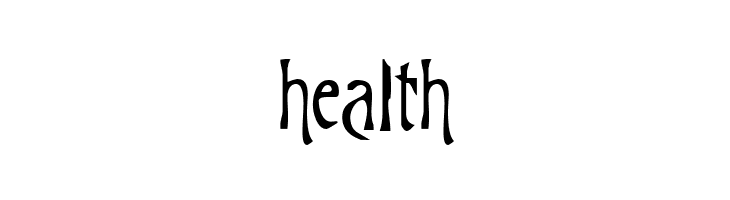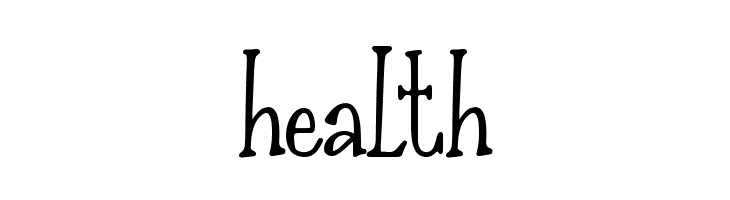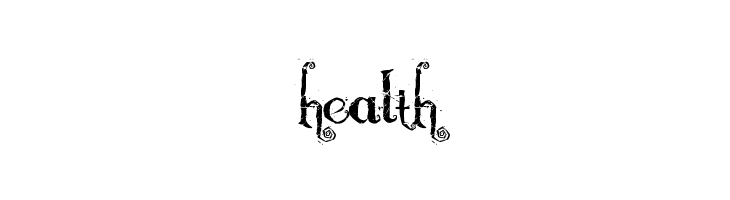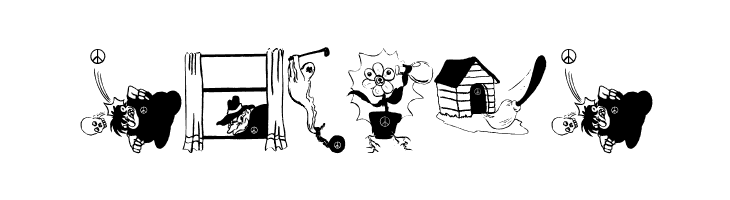
Nightmare-Before-Christmas Font
A whimsical, gothic-style font with irregular strokes and playful curves.
Burtons Nightmare Font
A whimsical, gothic-inspired font with sharp serifs and playful curves.
Nightmare-5 Font
A jagged, eerie font with sharp edges and a horror-inspired aesthetic.
Nightmare Hero Font
A bold, gothic-inspired font with sharp, angular edges and dramatic serifs.
Nemo Nightmares Font
A decorative, grunge-style font with spirals and distressed textures.
WEDDING NIGHTMARES trial Font
An elegant, ornate script font with flowing cursive letters and decorative flourishes.
Nightmare Alley Bold Font
A bold, rugged font with a distressed, hand-drawn appearance.
CF Nightmare PERSONAL Regular Font
A bold, dripping font perfect for horror-themed designs.
Silent Hill Nightmares Font
A horror-themed pictorial dingbat set with detailed illustrations.
Nightmare Alley Font
A bold, distressed font with a rough, textured appearance.
NIGHTMARE PILLS Font
A distressed serif font with a grunge, weathered appearance.
Wedding Nightmares Personal Use Italic Font
An elegant, italic script font with dramatic flourishes and vintage charm.
Nightmare AOE Font
A bold, jagged font with a horror-themed, dynamic style.
NIGHTMARE Font
A chaotic, edgy font with jagged, irregular strokes and a distressed appearance.
Nightmare Maker Font
A bold, angular font with sharp, pointed elements and a dramatic, modern gothic style.
Nightmare Alley Rotalic Font
A bold, distressed, and slanted font with a gritty, urban aesthetic.
Nightmare Alley Expanded Font
Nightmare Alley Condensed Font
A bold, distressed font with a vintage horror theme.
BCN Nightmare Club Font
A bold, distressed font with a grunge, textured appearance.
Hello Nightmare Regular Font